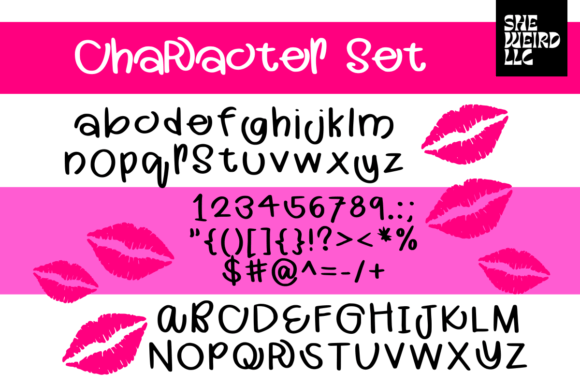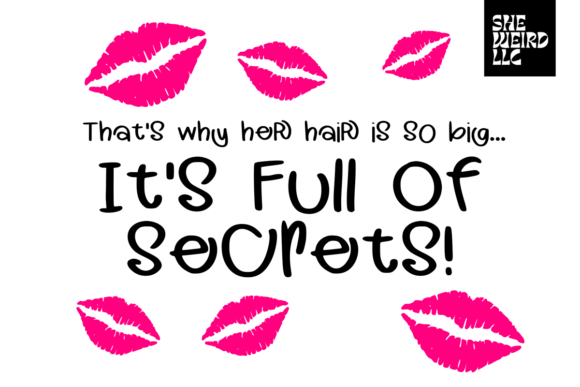
Gossip Girl Font
Gossip Girl Font : A Playful Handwritten Font for Creative Projects
Gossip Girl is a fun and whimsical handwritten font that brings a touch of playfulness to your designs. Its quirky style makes it perfect for a wide range of creative projects, especially those with a crafty or imaginative focus.
Key Features of Gossip Girl Font
• Playful Handwritten Style: Adds a touch of whimsy and creativity to your designs.
• Versatile Application: Suitable for crafts, DIY projects, greeting cards, and more.
• Quirky Character: Injects personality and charm into your work.
Perfect for Multiple Creative Projects
Gossip Girl’s adaptability makes it an excellent choice for:
• Craft-related designs
• DIY project labels and instructions
• Greeting cards and invitations
• Social media graphics
• Posters and flyers
• Branding materials for creative businesses
Enhancing Craft and DIY Projects
For craft enthusiasts and DIY lovers, Gossip Girl is a dream come true. Its whimsical flair adds an extra layer of creativity to your designs, making them more appealing and engaging. Whether you’re creating labels for homemade products or designing instructions for DIY kits, this font brings a personal touch that resonates with your audience.
Elevating Social Media and Digital Content
In the digital realm, Gossip Girl shines by making your content more engaging and memorable. Use it for:
• Eye-catching social media posts
• Fun and friendly email headers
• Unique blog post titles
• Engaging infographics
Creating Memorable Print Materials
Gossip Girl’s charm extends to print materials as well. It’s perfect for:
• Quirky greeting cards
• Attention-grabbing posters
• Unique business cards for creative professionals
• Fun and friendly packaging designs
Gossip Girl is more than just a font; it’s a tool to infuse your projects with personality and charm. Its playful nature makes it ideal for designs that aim to engage and delight audiences. Whether you’re a crafter, DIY enthusiast, or creative professional, Gossip Girl offers the perfect blend of fun and functionality. By incorporating Gossip Girl into your designs, you can create visually appealing and memorable content that stands out in both digital and physical spaces. Embrace the whimsical spirit of Gossip Girl and watch as it transforms your creative ideas into captivating realities!